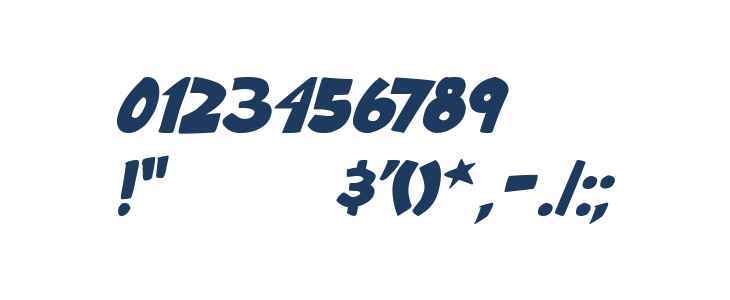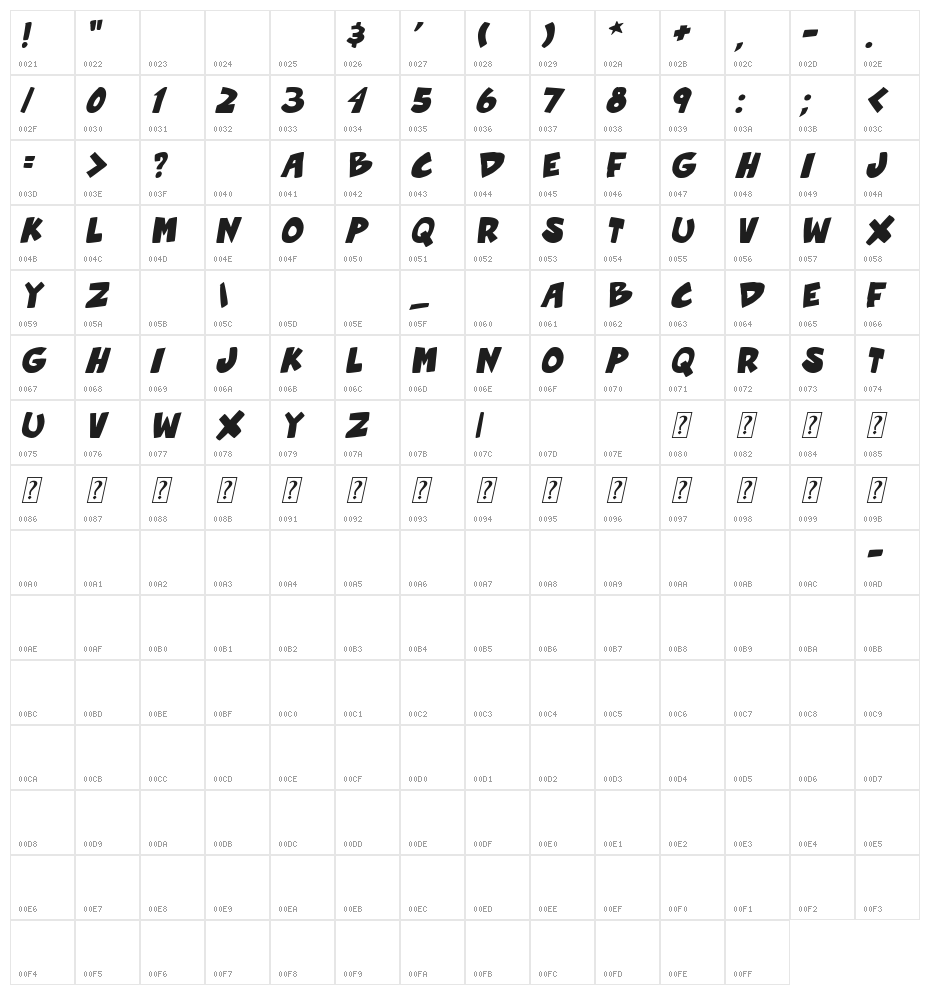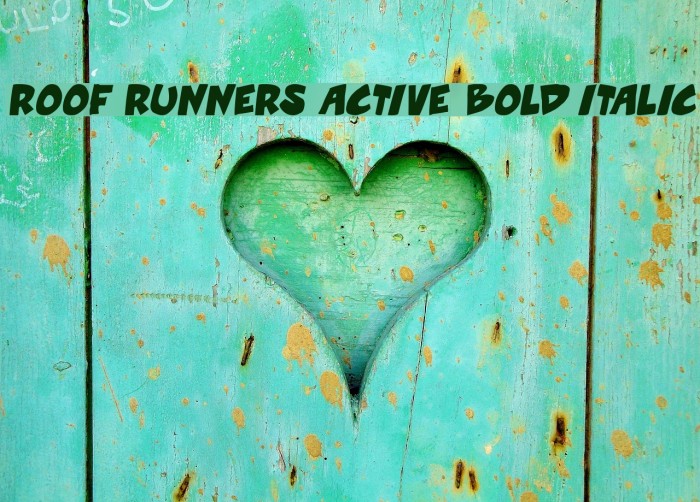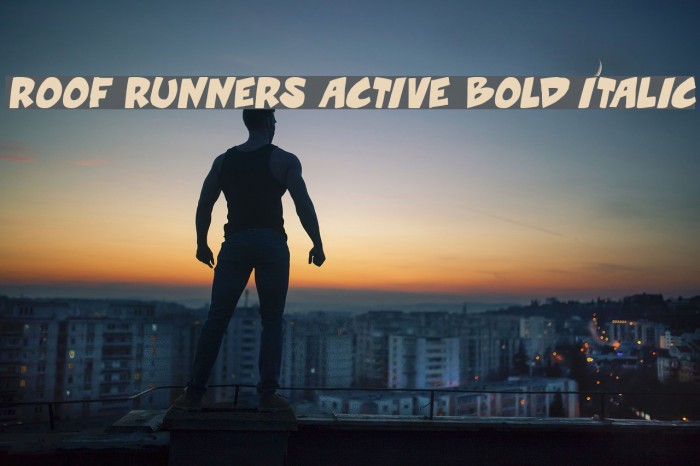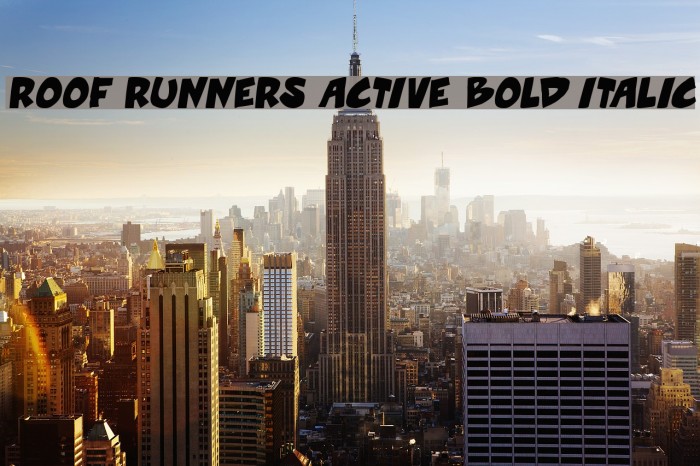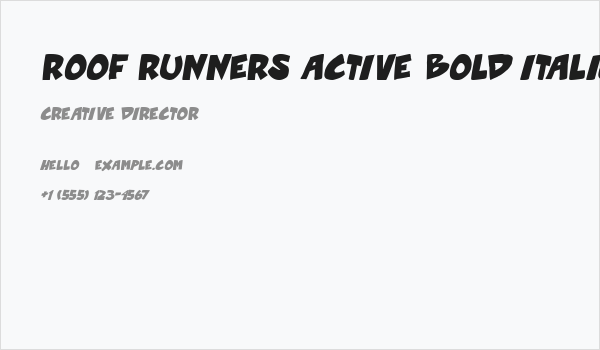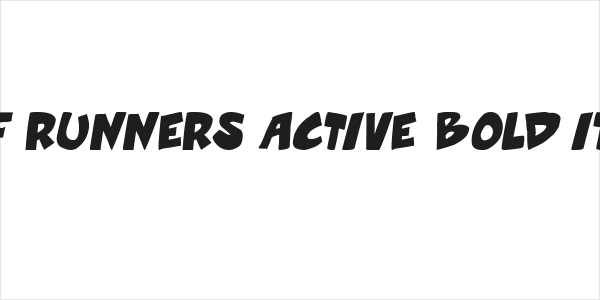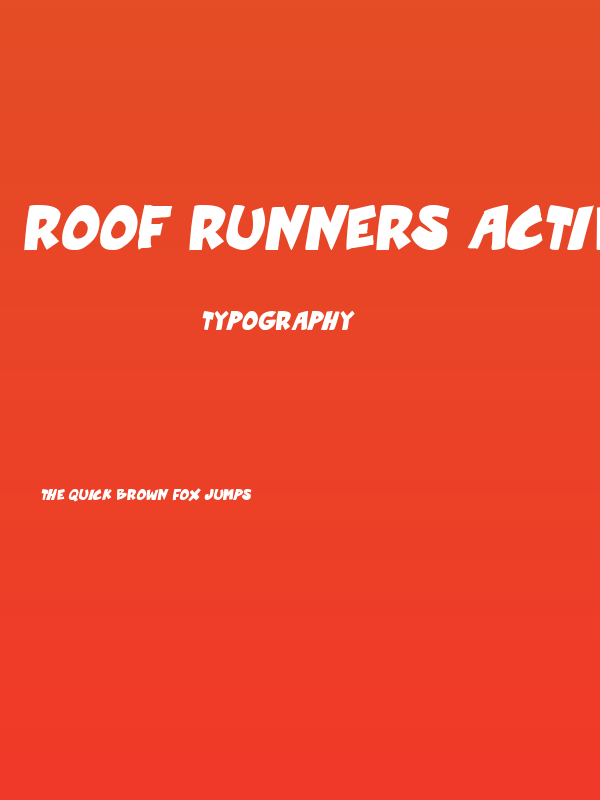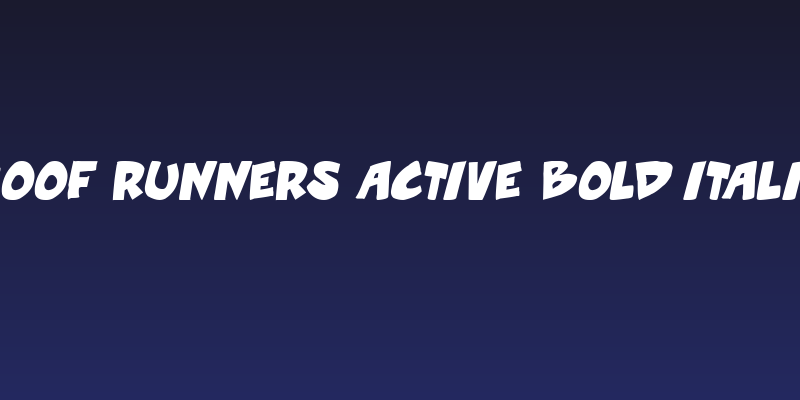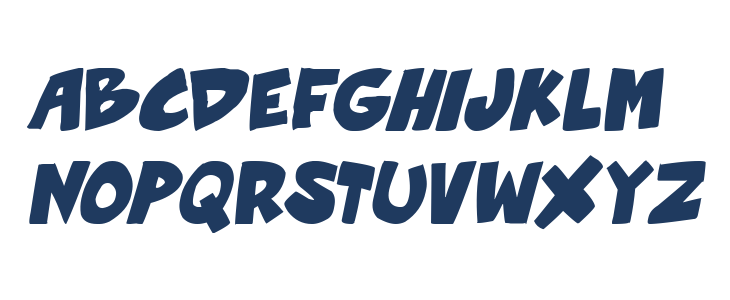
Roof runners active Bold Italic Font
Roof runners active Bold Italic Description
This font features a bold and dynamic style with a strong italic slant, giving it an energetic and forward-moving appearance. The characters are thick and robust, with a playful yet aggressive edge that makes them stand out. The strokes are uneven, adding a sense of movement and excitement. This font is ideal for projects that require a sense of action or urgency, such as sports branding or dynamic advertising. The numbers and special characters maintain the same bold and italicized style, ensuring consistency across all uses.
| Proposed Projects | Perfect for sports branding, dynamic advertising, event posters, and action-themed designs. |